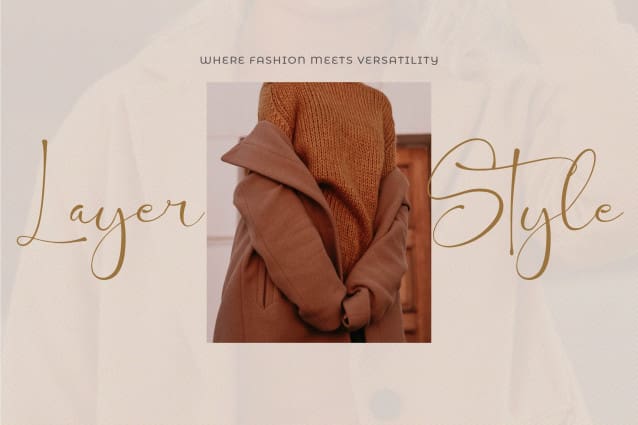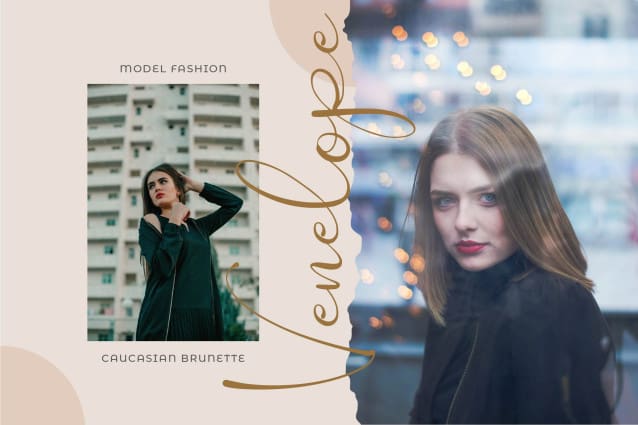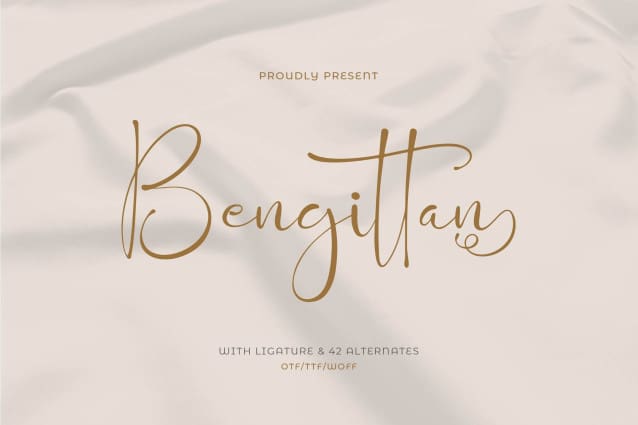
Bengittan Script Font
Bengittan Script Font, from Denustudios, suitable for any projects such as: logos, branding projects, homeware designs, product packaging, mugs, quotes, posters, shopping bags, t-shirts, book covers, name card, invitation cards, greeting cards, label, photography, watermark, special events, and all your other lovely projects that need a beautiful script taste.